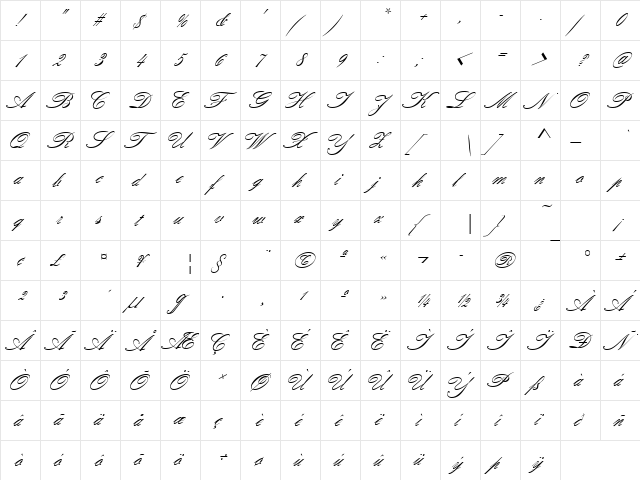
ClassicScrNo1URWDReg Regular
Design Context for ClassicScrNo1URWDReg Typeface
ClassicScrNo1URWDReg wears its vintage influences proudly, with letterforms that recall mid-century signage, classic packaging, and nostalgia-driven design.
Font Pairing: Combine ClassicScrNo1URWDReg with a simple slab or neutral sans — period-accurate companions reinforce the vintage feel without competing for attention.
Pro Tip: Lean into ClassicScrNo1URWDReg's period character by pairing it with aged paper textures, muted colour palettes, and vintage illustration styles.